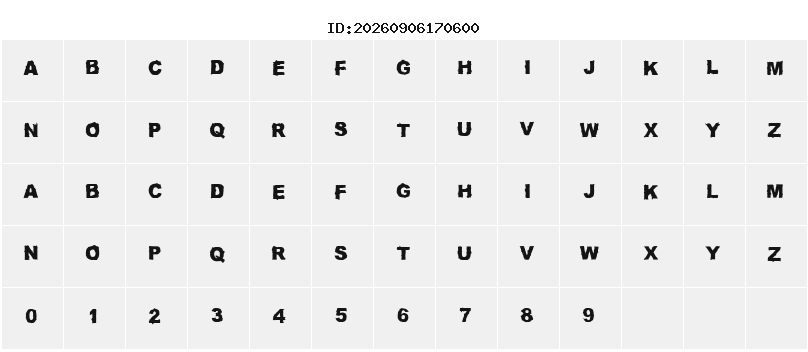
TRUCK DRIVER Preview
• Font Name: TRUCK DRIVER
• Font Style: TRUCK DRIVER
• Font ID: 1.000;pyrs;TRUCKDRIVER
• Full Font Name: TRUCK DRIVER
• Version: Version 1.00 2011
• PostScript Name: TRUCKDRIVER
• Character Count: 88
• Designer: SAJI JOHNNY KUNDUKULAM
About TRUCK DRIVER.ttf
TRUCK DRIVER.ttf is a modern, elegant sans-serif font designed for ultimate readability and visual harmony. Perfect for branding, headlines, web design, and print materials.